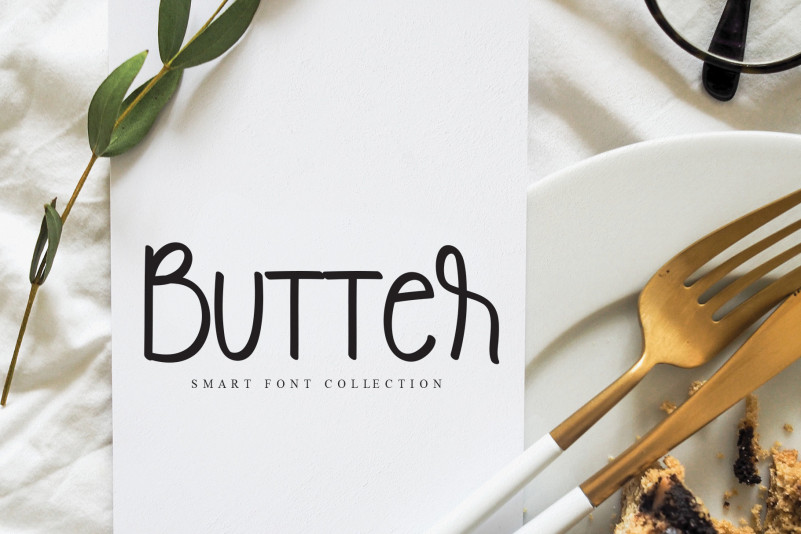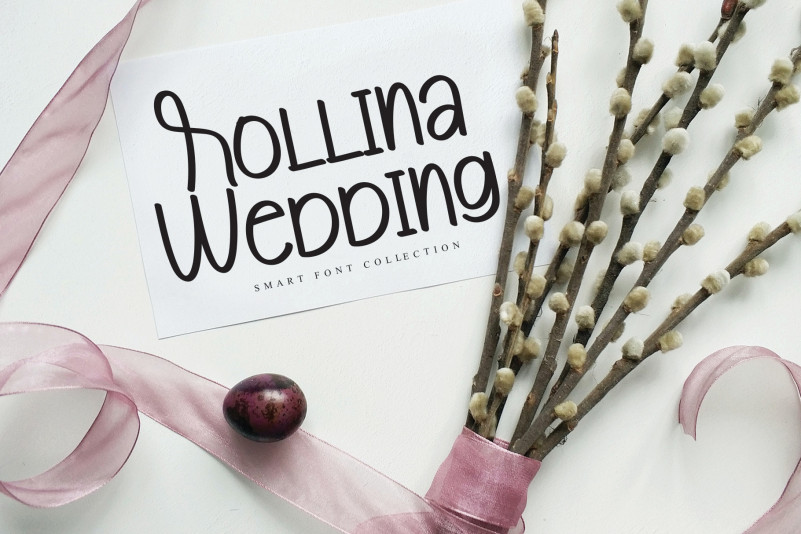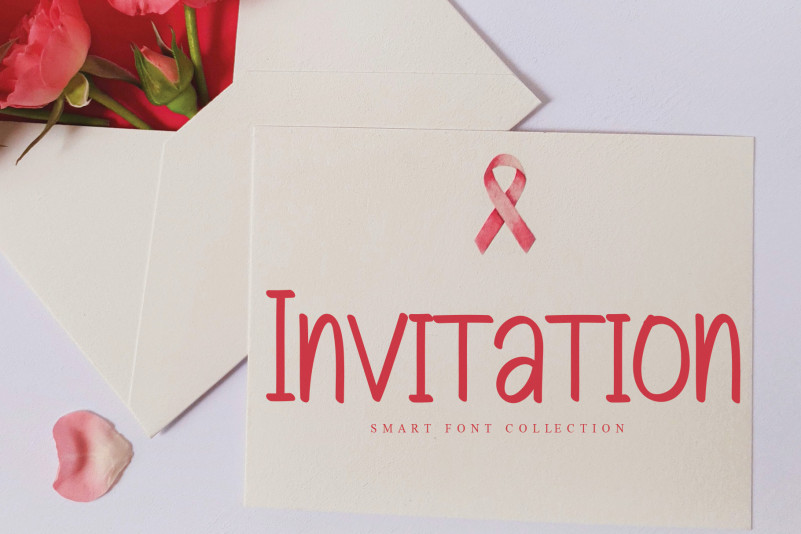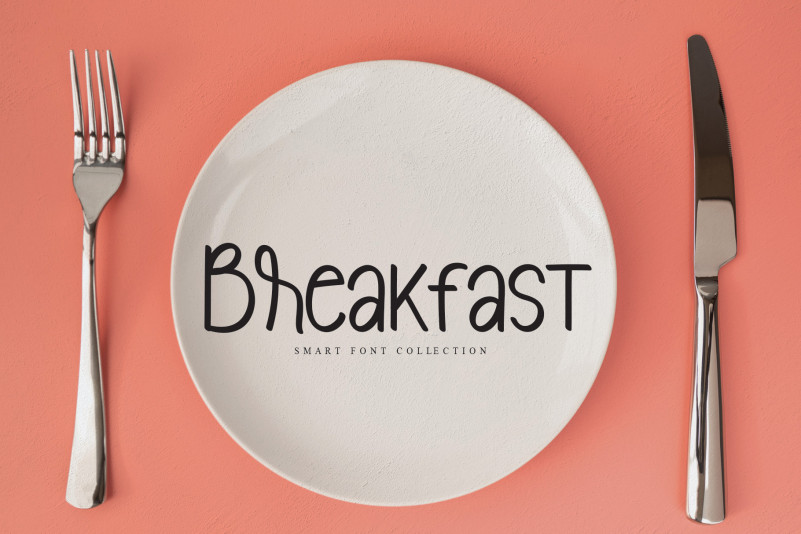
Remarkable Display Font
Introducing Remarkable Display Font – The latest style letters are perfect for wall displays, wedding invitations, social media post logos, advertisements, product packaging, product designs, labels, photography, watermarks, invitations, stationery,and any project that requires taste handwriting.